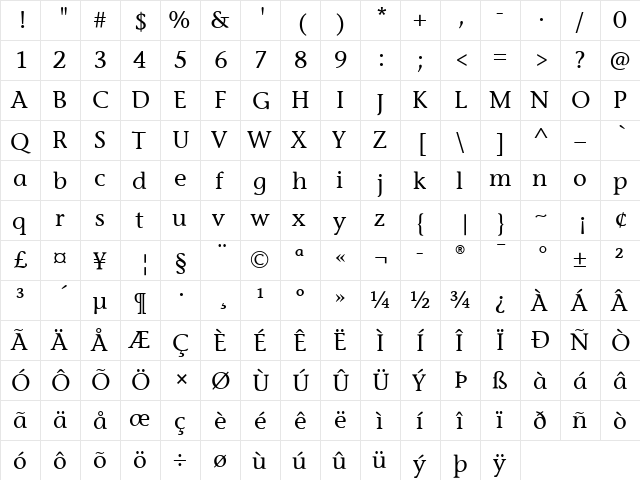
Stone Inf ITC Medium Regular
Design Context for Stone Inf ITC Medium Typeface
Stone Inf ITC Medium is a composed and adaptable typeface that performs quietly and consistently across a wide range of design contexts.
Pro Tip: Use Stone Inf ITC Medium in both headline and body roles to test its range before committing to a single application.